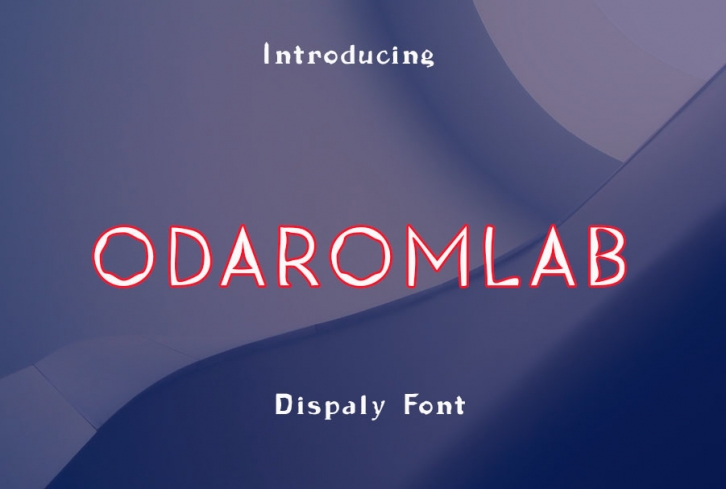
Odaromlab is a cool and neat display font. It can easily be matched to an incredibly large set of projects, so add it to your creative ideas and notice how it makes them stand out!